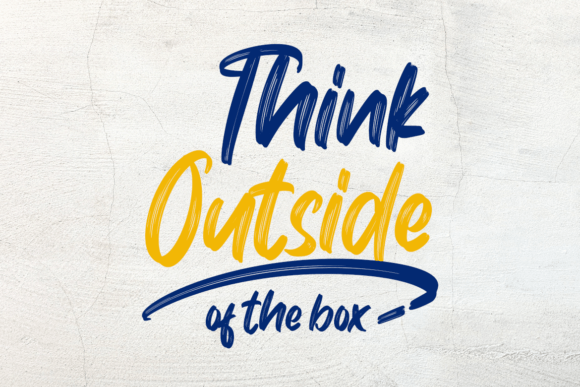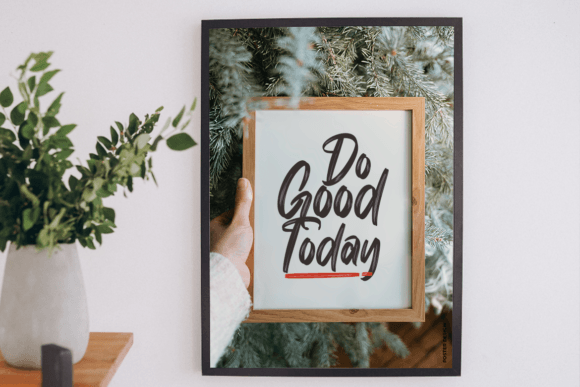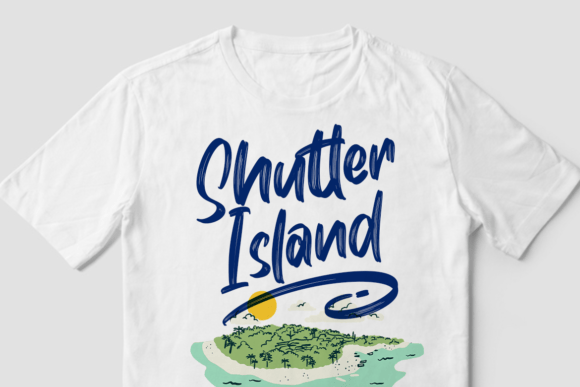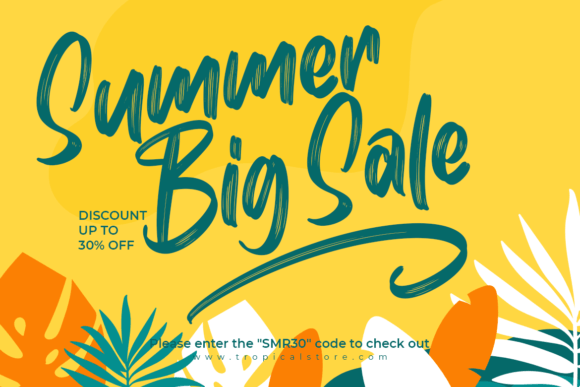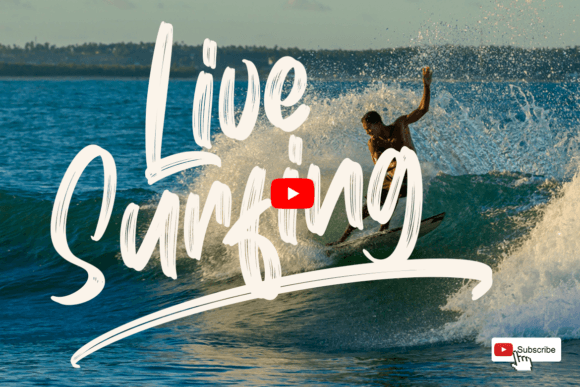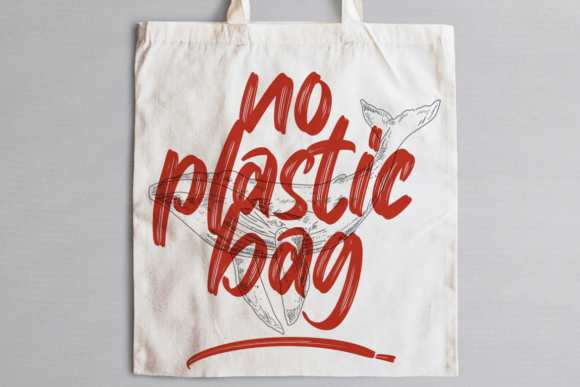
Introduction to Mettamorph Font
Do you remember that moment when you stumbled upon the perfect design resource to elevate your creative project? Maybe it was a bold font that added a touch of sophistication, or a delicate image with a transparent background that brought your vision to life. For me, that moment came when I discovered the Mettamorph Font – a versatile and stylish handwritten script font that has been a game-changer for my design endeavors.
As a designer, you’re always on the lookout for high-quality design elements that can add an extra layer of depth and emotion to your work. The Mettamorph Font is an excellent choice for anyone seeking a clean and exquisite feel for their projects. Whether you’re creating greeting cards, headlines, or any other type of design, this font is sure to make a lasting impression.
Key Features of Mettamorph Font
- Unique, modern design with a touch of elegance, making it perfect for various design applications
Honest Review: Mettamorph Font
As a designer, I’m always on the lookout for high-quality design resources to elevate my creative projects. Recently, I stumbled upon the Mettamorph Font, and I’m excited to share my thoughts on this font.
What works well: ✨ The Mettamorph Font has a unique, modern aesthetic that makes it perfect for a variety of design applications. Its clean lines and minimalistic design make it easy to read and visually appealing. Additionally, the font is highly customizable, allowing designers to easily adjust the opacity and color to suit their needs.
- Unique and modern aesthetic
- Perfect for a variety of design applications
Overall, I’m impressed with the Mettamorph Font. Its unique design and high level of customizability make it a valuable addition to any designer’s toolkit. However, its limitations should be carefully considered before using it in a commercial project.
Tips for Getting the Most Out of Mettamorph Font
Experiment with different font sizes, colors, and styles to create unique effects. Use the transparent background to create depth and interest in your designs.
Mettamorph Font is perfect for:
- Creating eye-catching social media graphics
- Designing engaging presentations and documents
- Adding a professional touch to your website or blog
Alternatives to Mettamorph Font
Montserrat Font is a popular sans-serif font ideal for creative projects that require a modern and sleek look. It’s available for free download and can be used with a transparent background. When to use: Montserrat Font is suitable for headings and titles in a high-quality design resource. It compares to Mettamorph Font in its modern and clean design, but with a more geometric feel.
Open Sans Font is a highly legible font suitable for a wide range of creative projects, including those requiring a high-quality design resource. It’s available for free download and can be used with a transparent background. When to use: Open Sans Font is ideal for body text and paragraphs in a design project. It compares to Mettamorph Font in its clean and simple design, but with a more rounded feel.
Lato Font is a modern sans-serif font suitable for creative projects that require a high-quality design resource. It’s available for free download and can be used with a transparent background. When to use: Lato Font is suitable for headings and titles in a design project. It compares to Mettamorph Font in its modern and clean design, but with a more elegant feel.
Does the Mettamorph Font have a transparent background?
Yes, the Mettamorph Font has a transparent background, making it ideal for use in designs with complex backgrounds or layers. The font’s transparent background allows you to easily combine it with other design elements, such as images or shapes, to create stunning